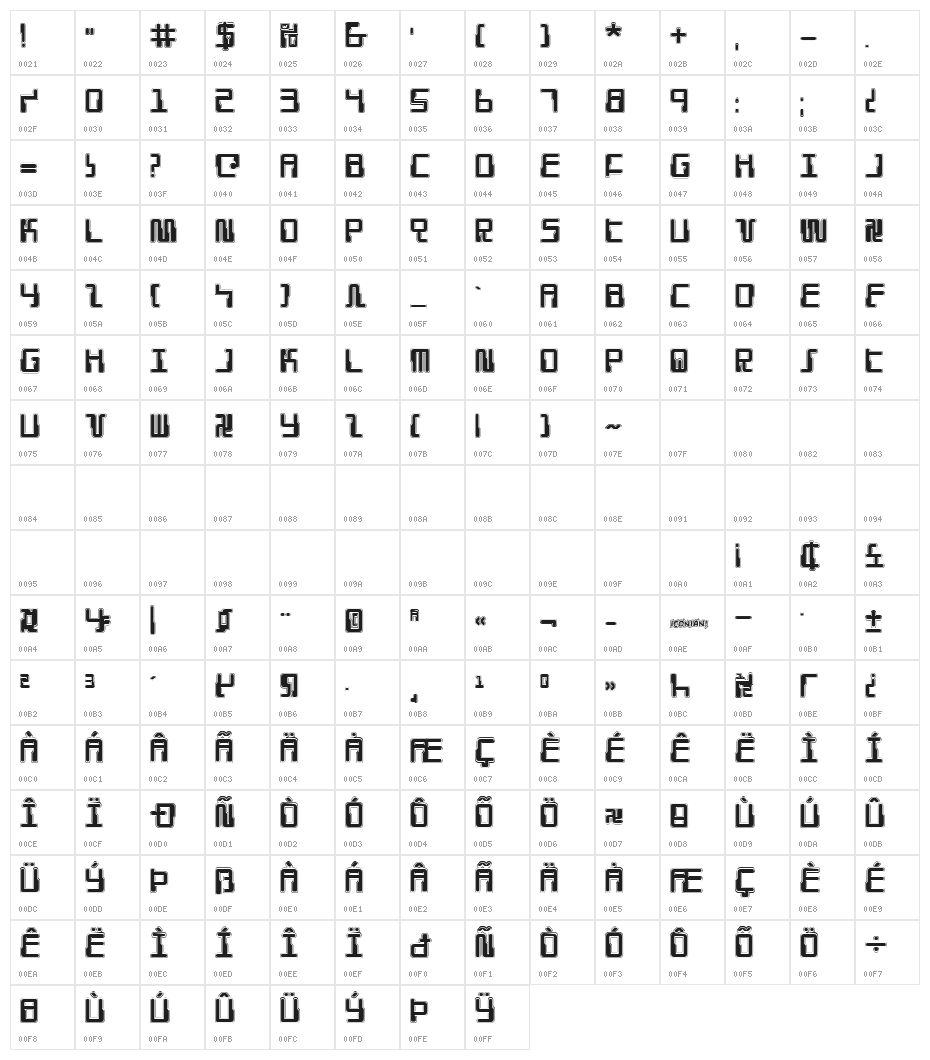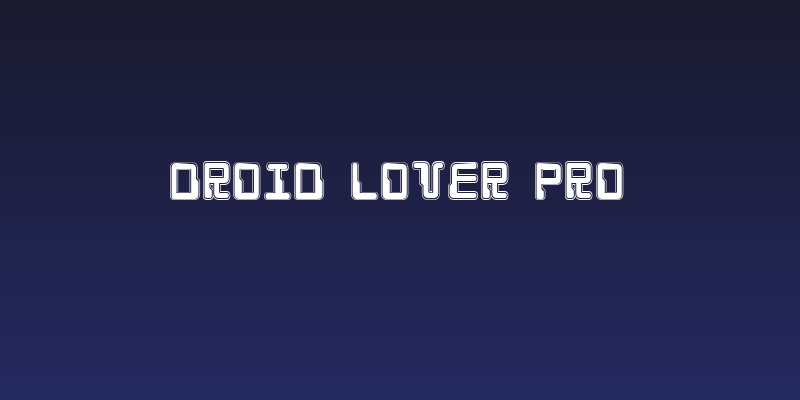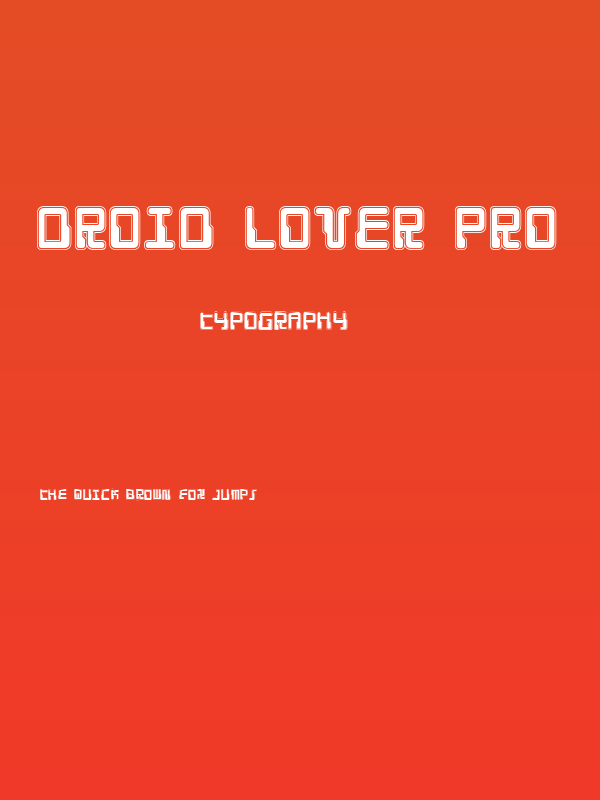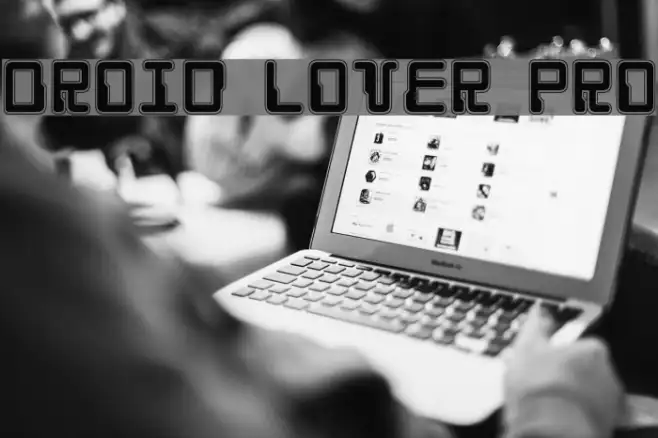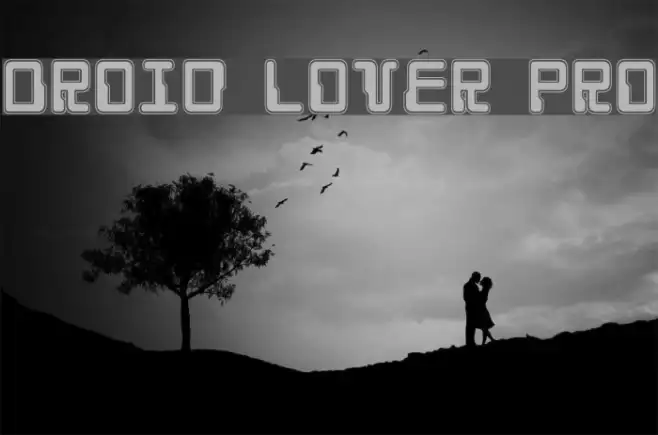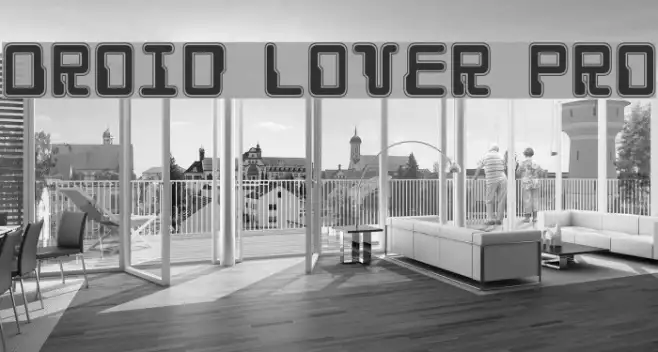
Droid Lover Pro Font
Droid Lover Pro Description
This font features a futuristic and tech-inspired design, characterized by bold, geometric shapes and a distinct outline that gives it a three-dimensional appearance. The characters are uniformly structured with rounded edges and consistent thickness, creating a cohesive and modern look. The uppercase and lowercase letters maintain a similar style, ensuring readability while adding a unique flair. Numbers and special characters are designed to match the overall aesthetic, making this font versatile for various applications. Its bold presence and clear lines make it suitable for attention-grabbing designs.
| Proposed Projects | Ideal for technology branding, sci-fi themed projects, video game titles, and digital media. |